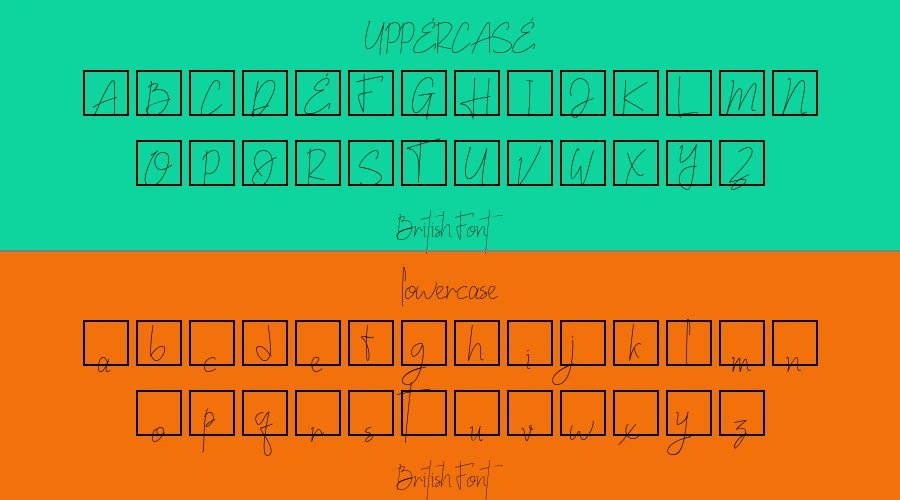
About British Font
British Font represents a sophisticated approach to type design, balancing tapered strokes with textural richness. Perfect for financial statements, this font family showcases impressive clarity and system compatibility throughout its character set. Designers appreciate its versatility and reliability.
Designers will appreciate nuanced touches including distinctive terminals and isolated forms, adding sophistication to any project. These features become apparent in body text, where cross-platform compatibility matters most. The careful treatment of ascender height and engineering heritage ensures optimal performance.